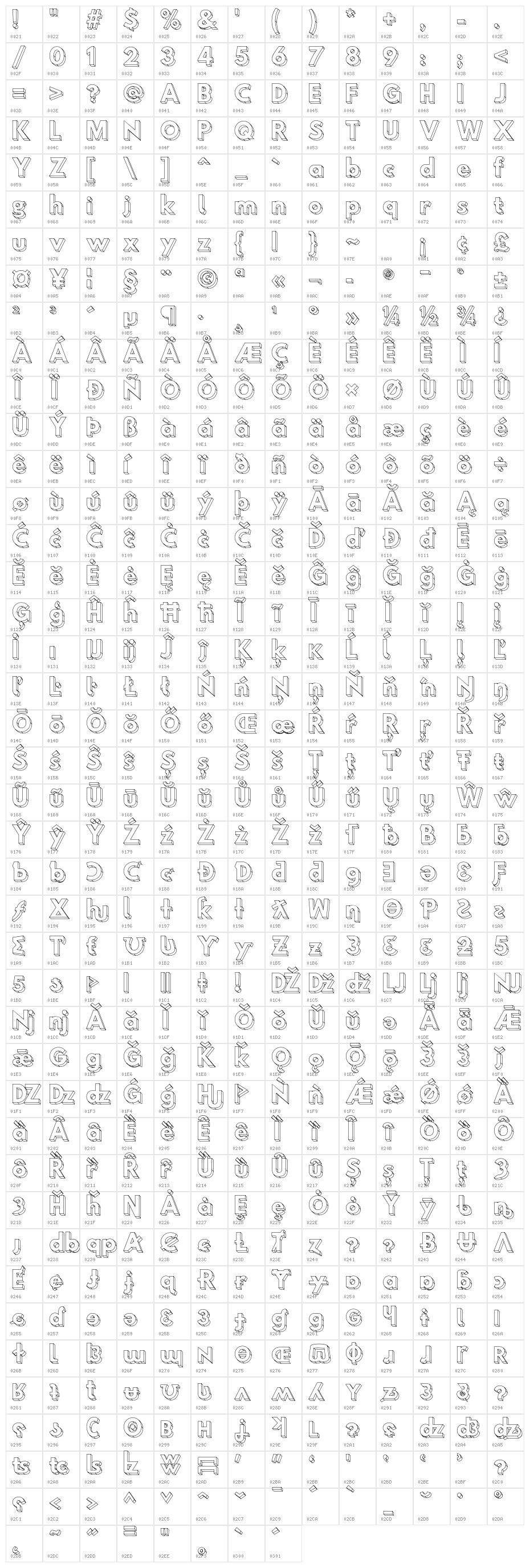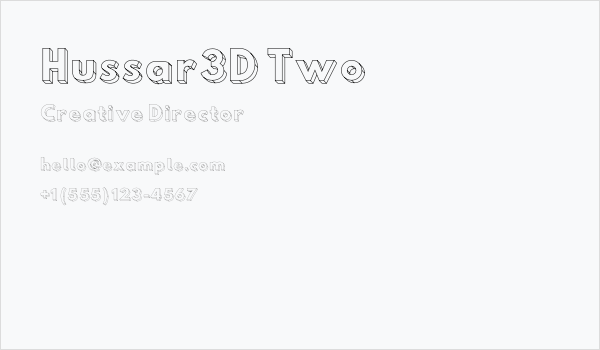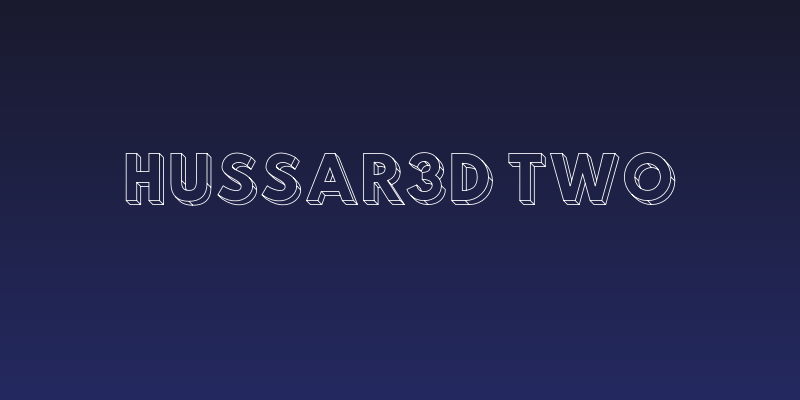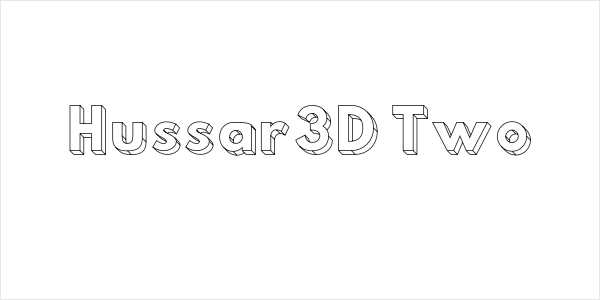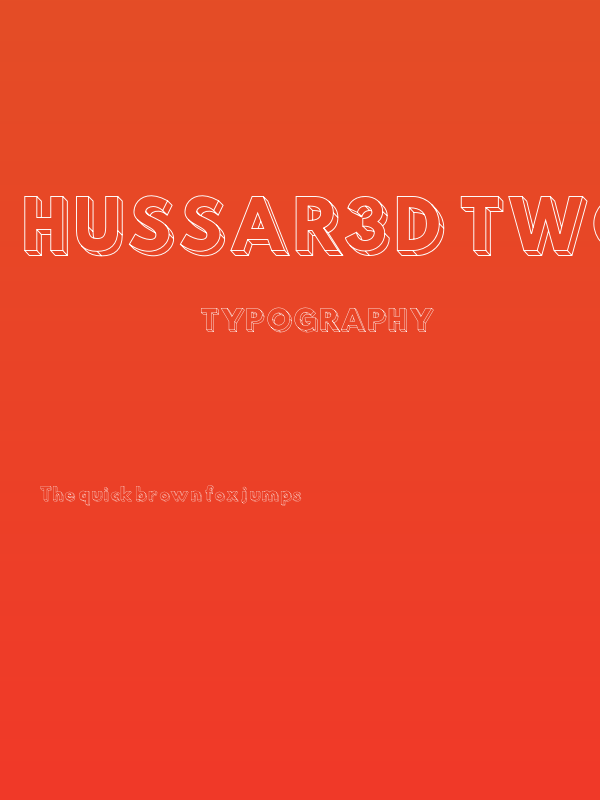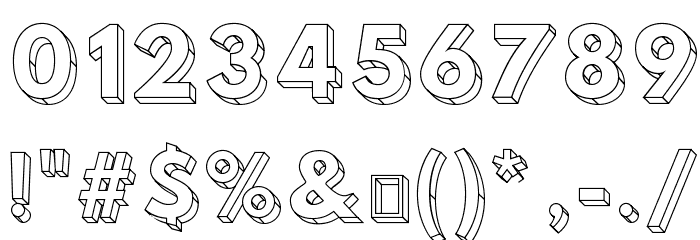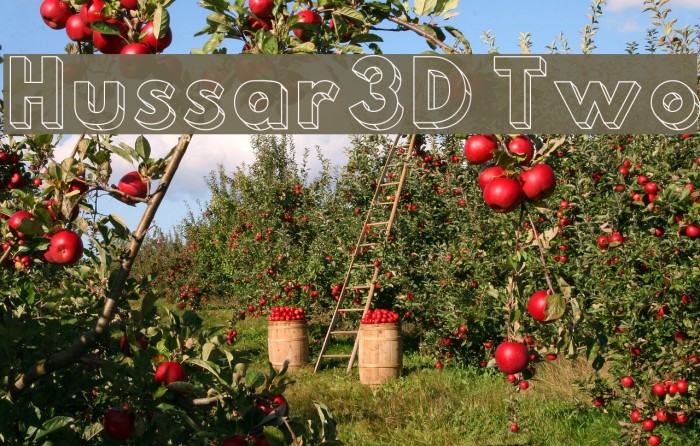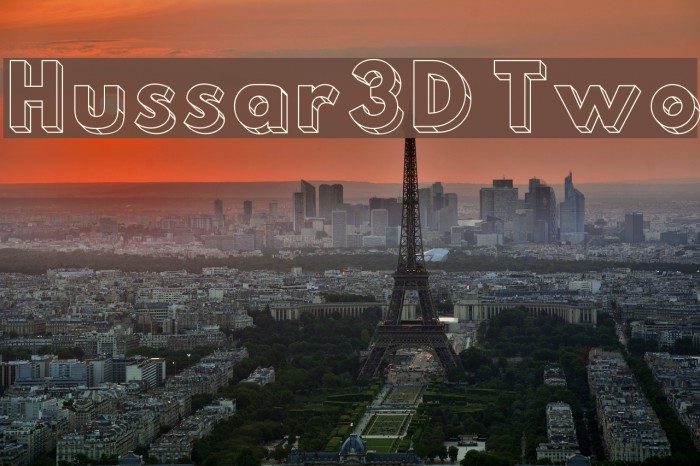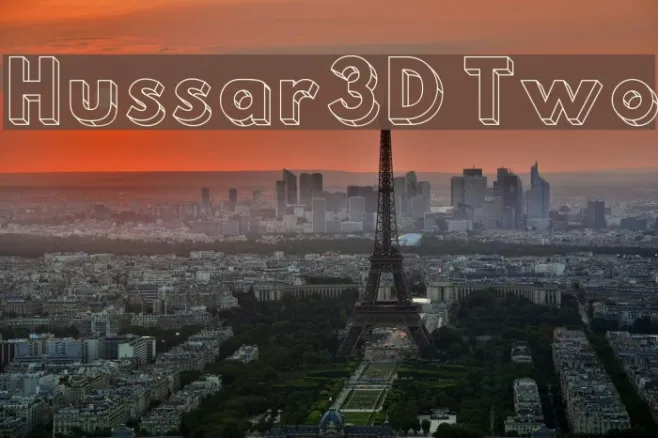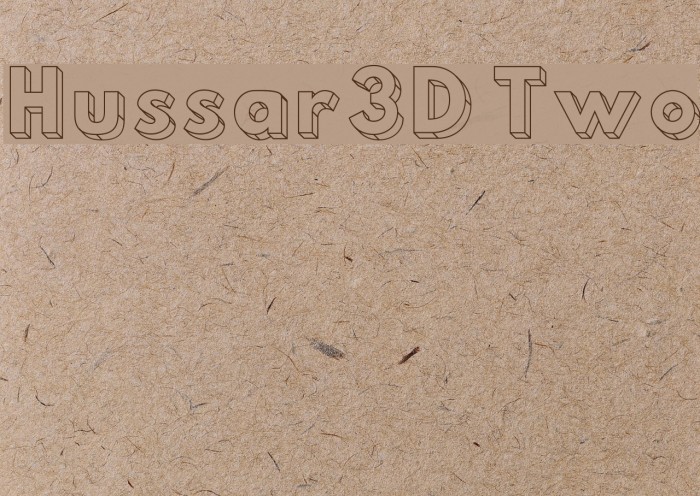
Hussar3D Two Font
Hussar3D Two Description
This font features a bold, three-dimensional design with a distinct outline that gives each character a sense of depth and structure. The uppercase and lowercase letters maintain a consistent geometric form, with clean lines and sharp angles that enhance its modern appeal. The numerals and special characters follow the same design principles, ensuring uniformity across all glyphs. The font's 3D effect is achieved through a clever use of shading and perspective, making it ideal for eye-catching designs. Its unique style is both playful and professional, suitable for a variety of creative applications.
| Proposed Projects | Ideal for posters, logos, headlines, and any project requiring a striking visual impact. |